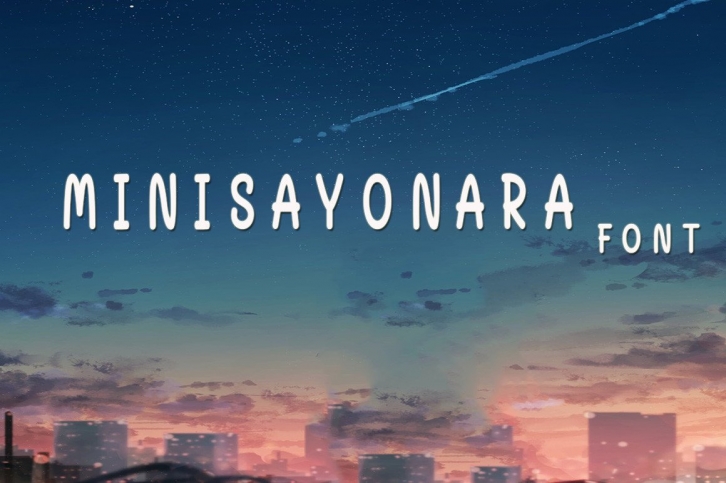
MiniSayonara is a handwritten typeface that is delicate, graceful, and flowing. It has lovely and well-balanced qualities, and as a consequence, it goes with a wide range of styles. Add it to your most imaginative thoughts and see how they come to life.